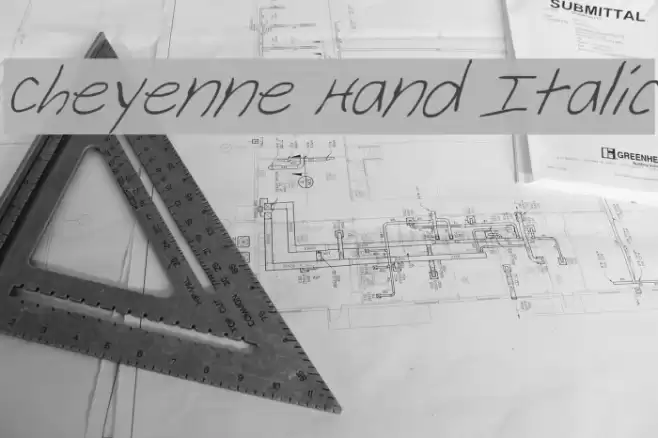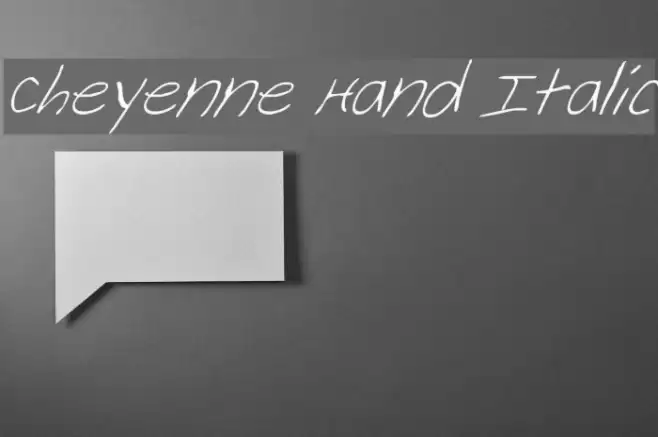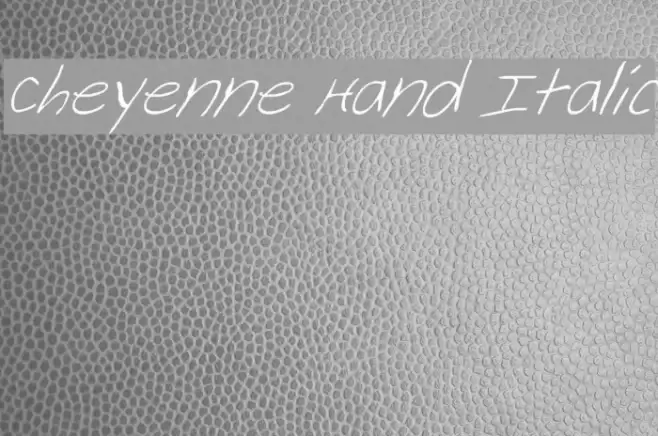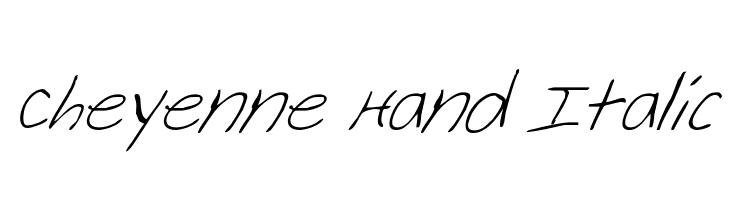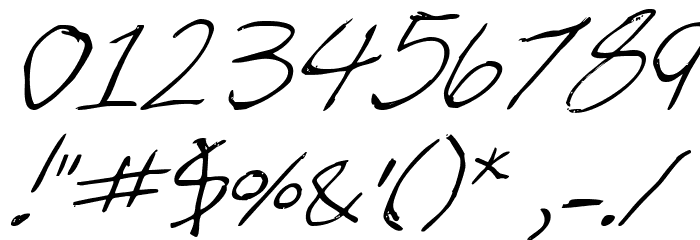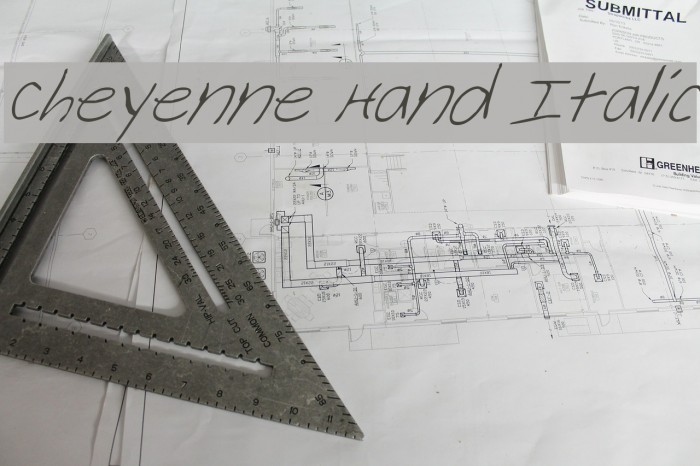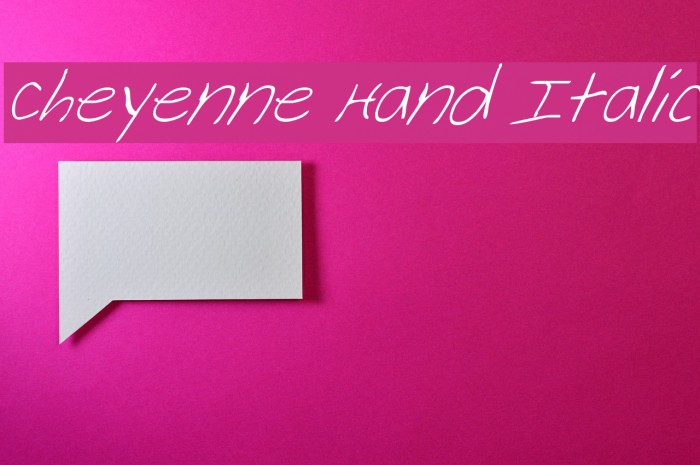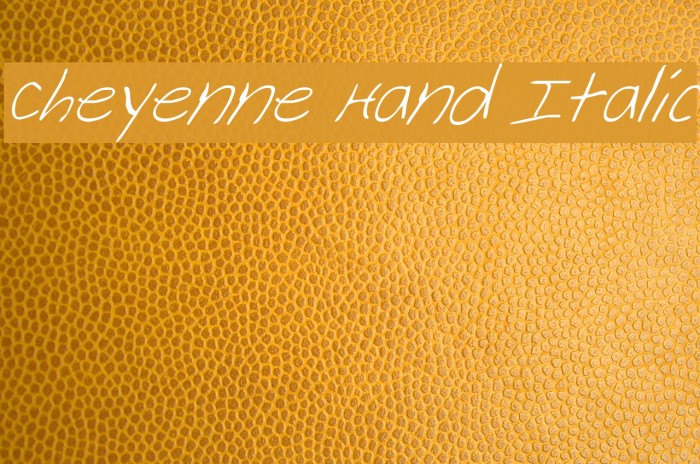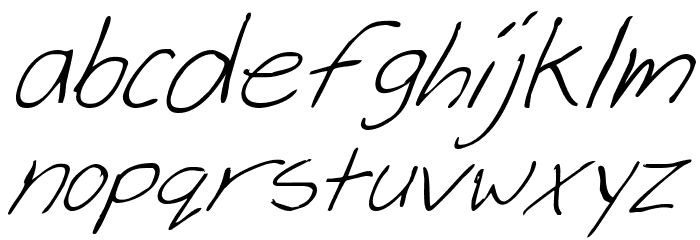
Cheyenne Hand Italic Font
Cheyenne Hand Italic Description
This font features a dynamic, handwritten style with a distinct italic slant, giving it a sense of motion and fluidity. The characters are crafted with a casual, yet deliberate stroke, reminiscent of personal handwriting. Uppercase and lowercase letters maintain a consistent style, with slightly exaggerated curves and angles that add personality. The numerals and special characters follow the same aesthetic, ensuring uniformity across all glyphs. This font's informal and approachable appearance makes it suitable for projects that require a personal touch.
A dynamic, handwritten italic font with a casual, fluid style from Handwritten fonts.
- Proposed Projects: Ideal for personal invitations, greeting cards, casual branding, and creative projects that require a handwritten touch.
- Overall Style: Casual, Personal
- Use Case: Headlines, Logos, Personal projects